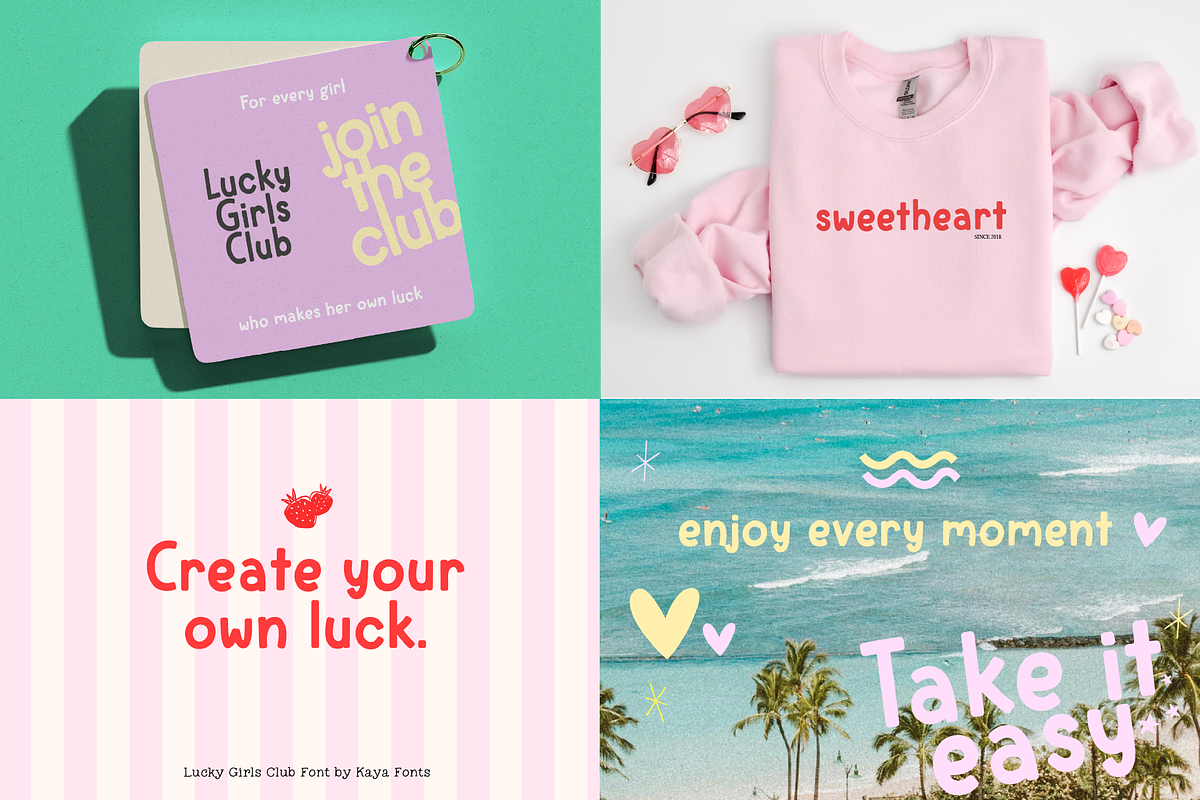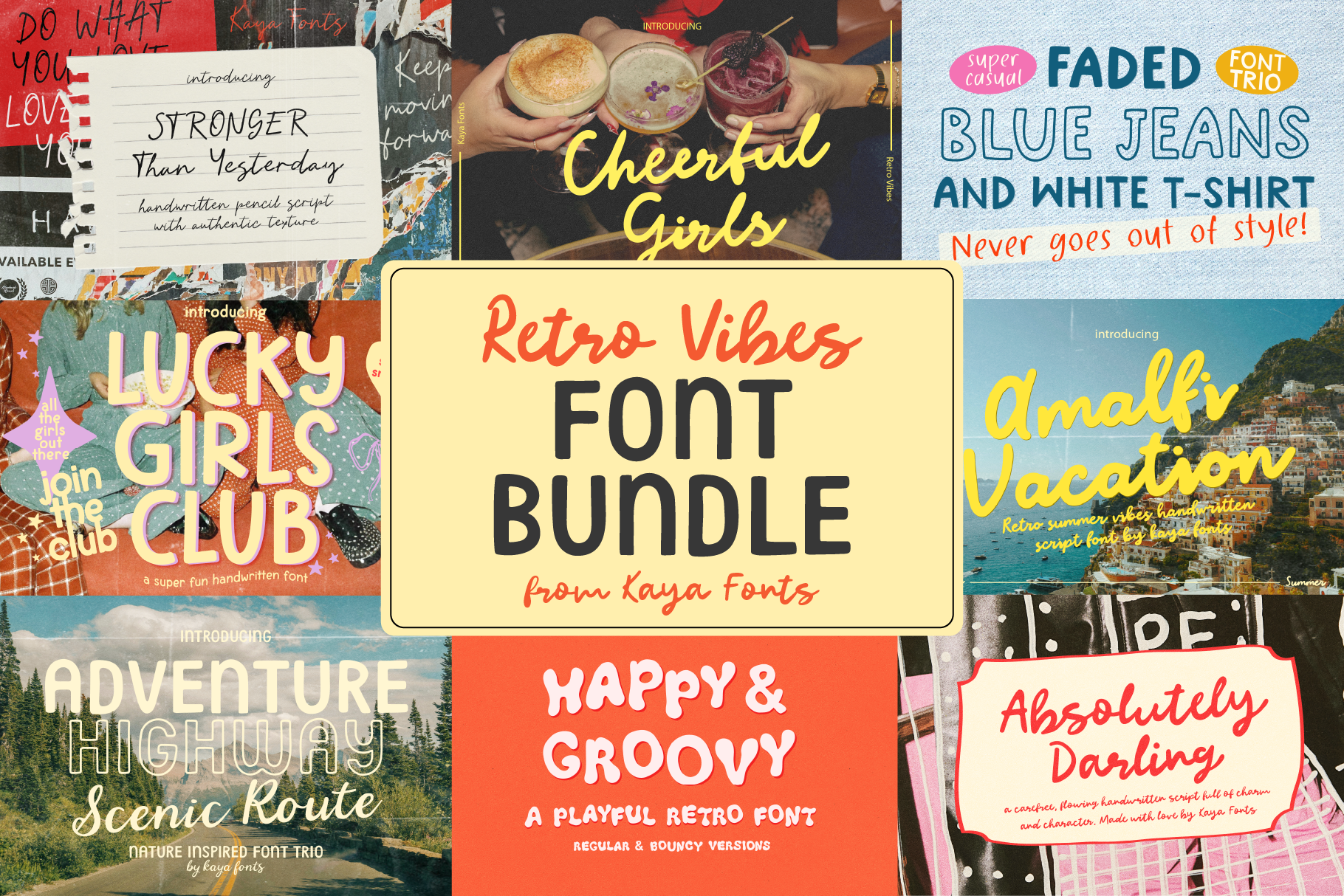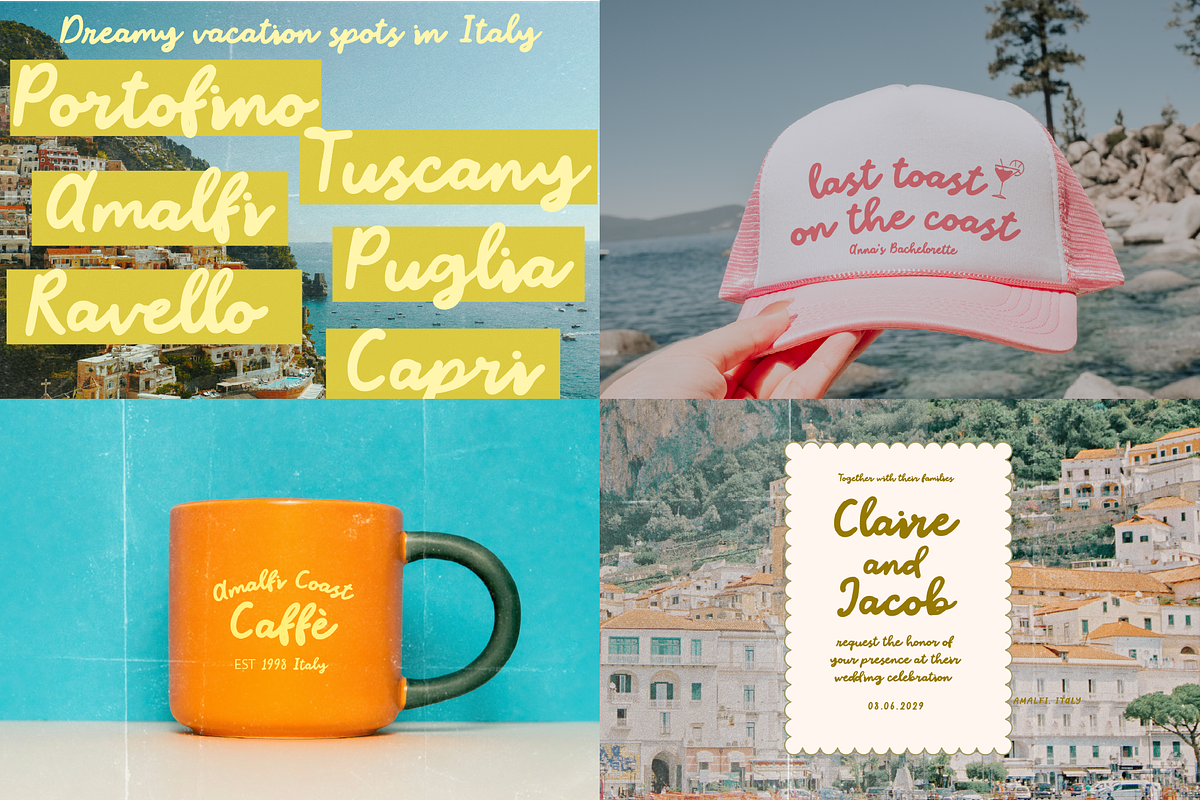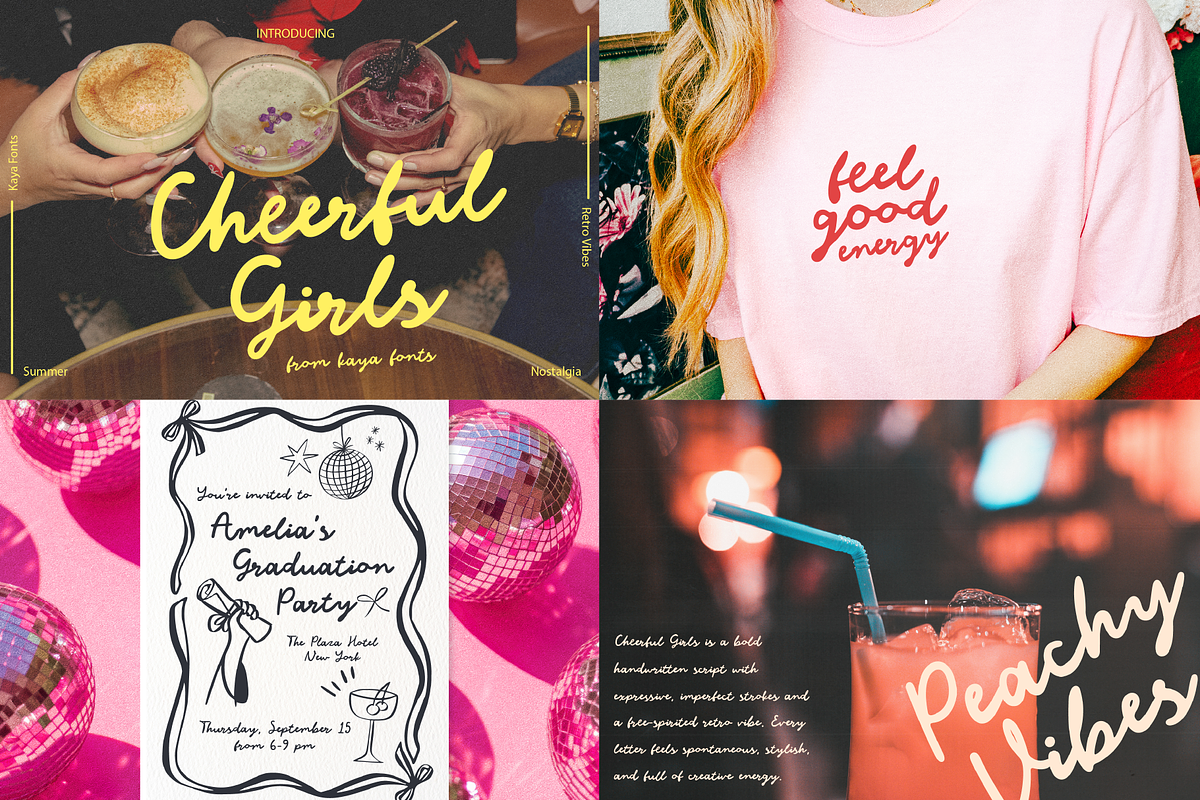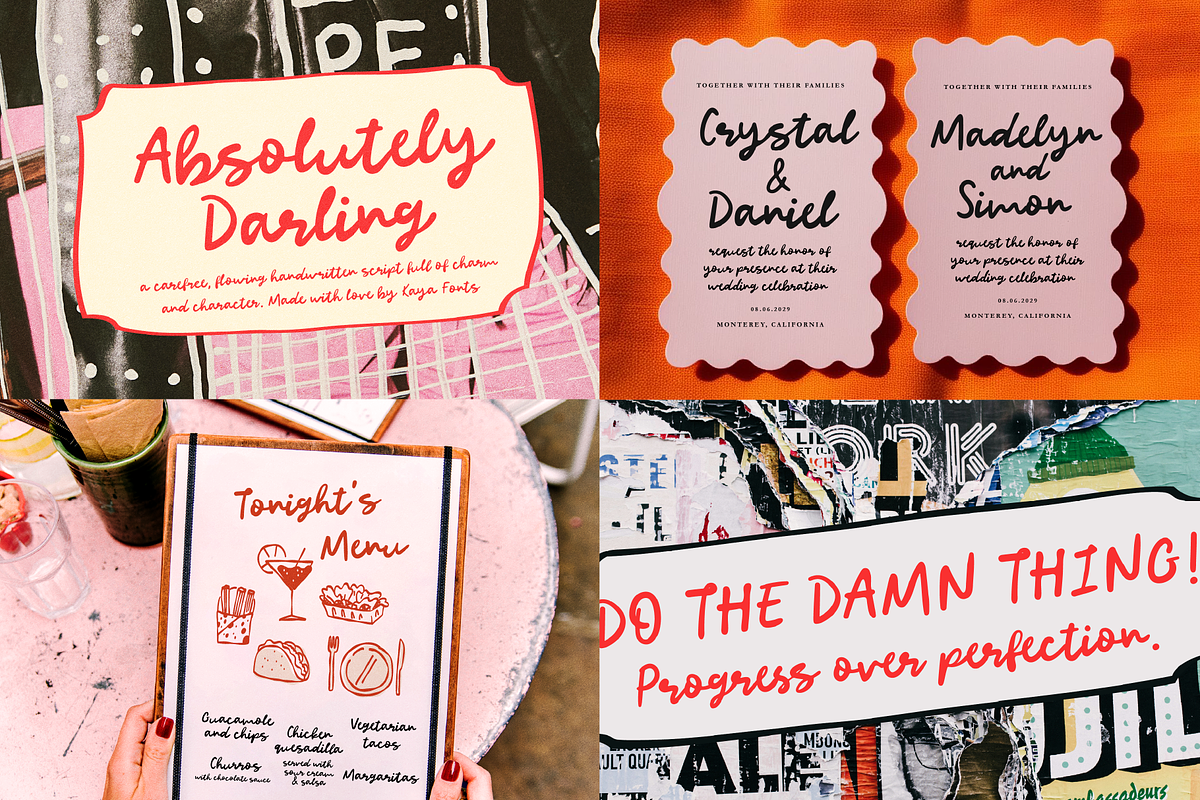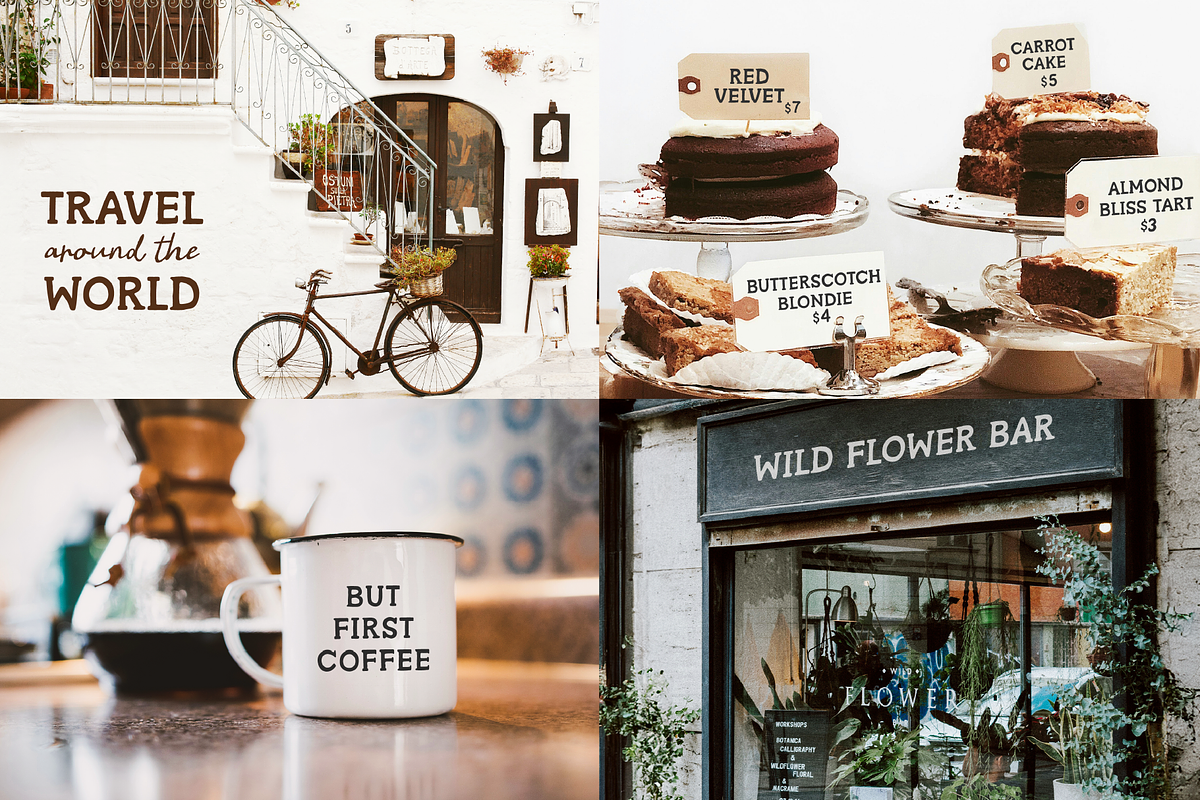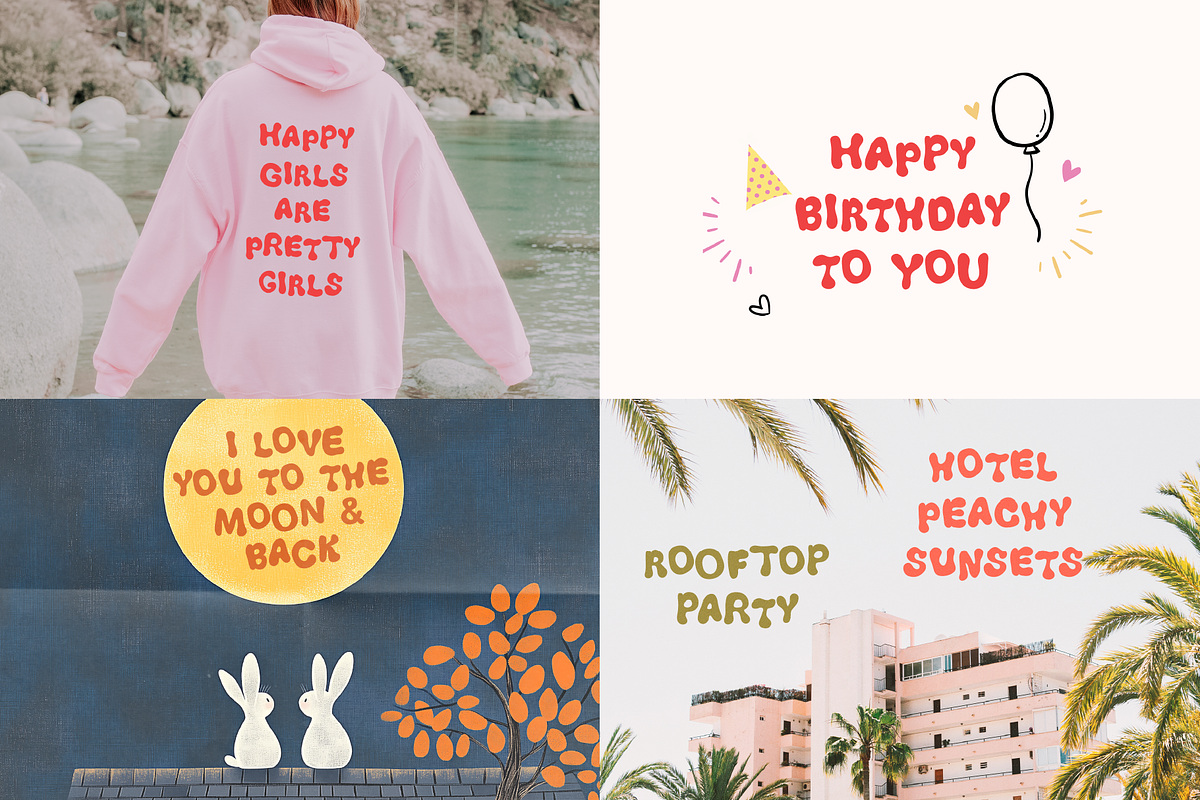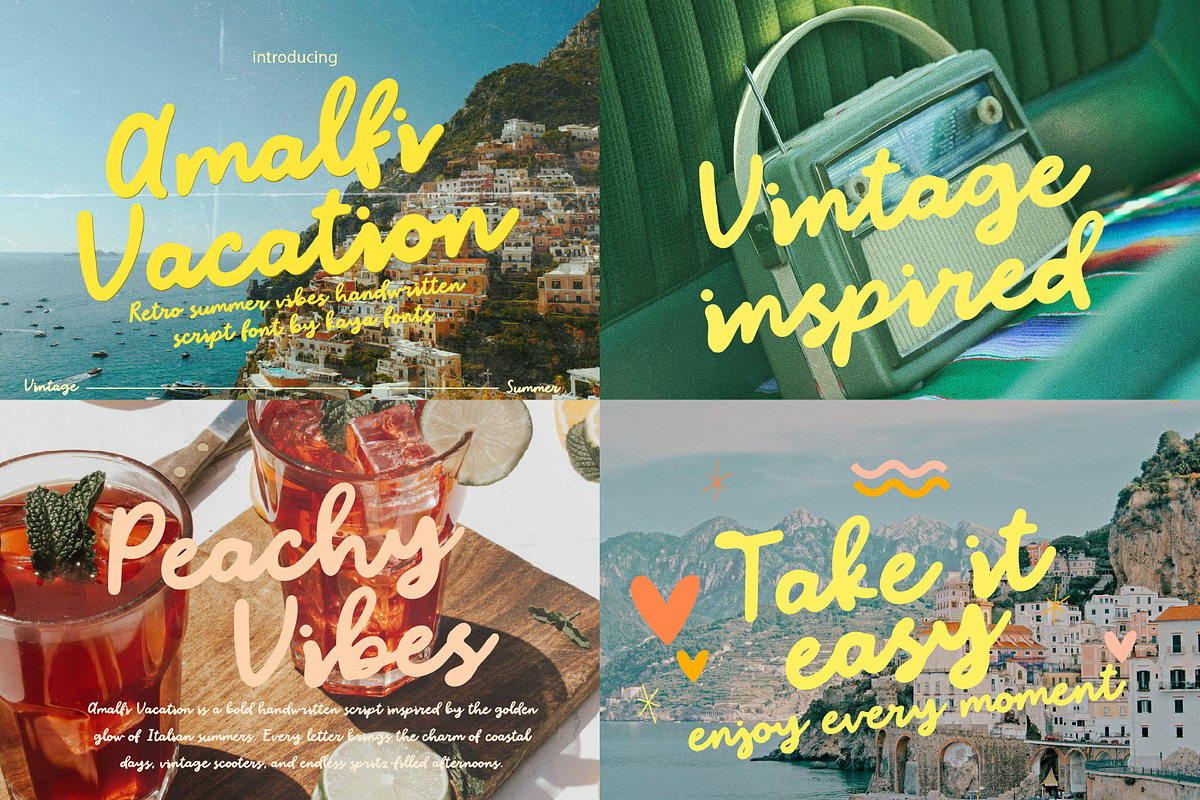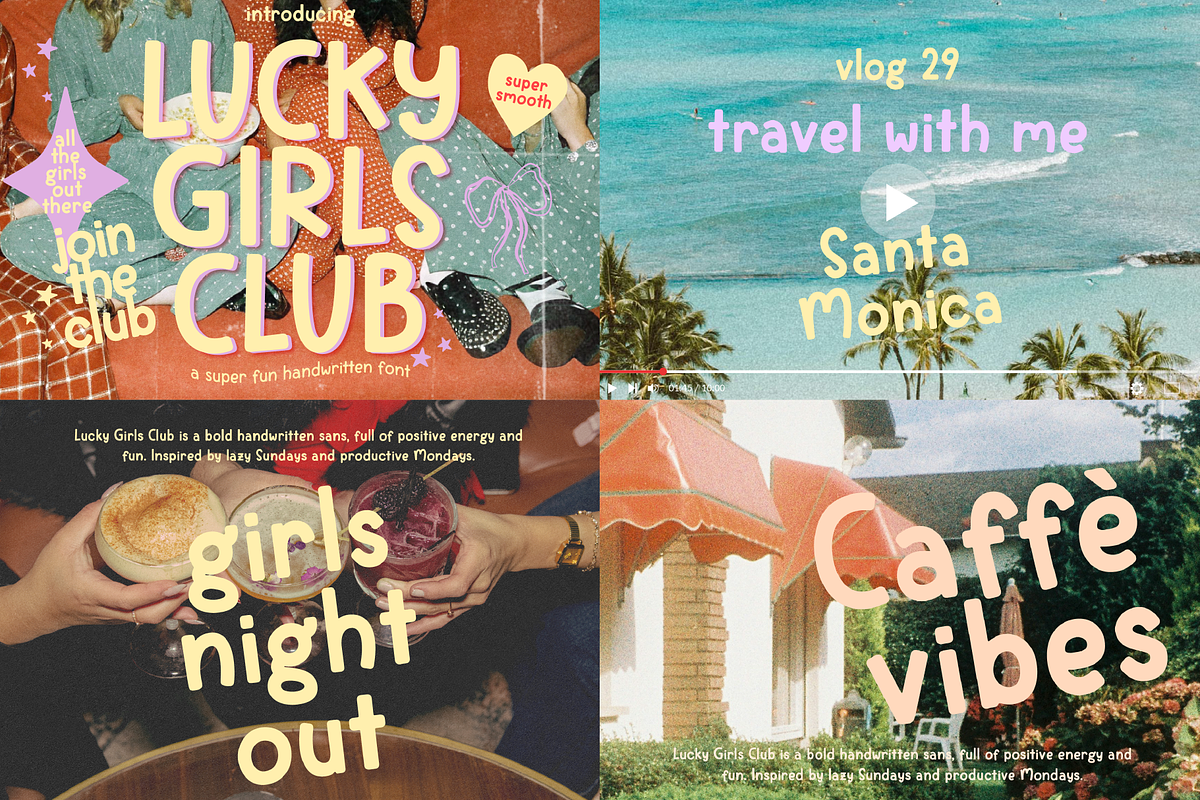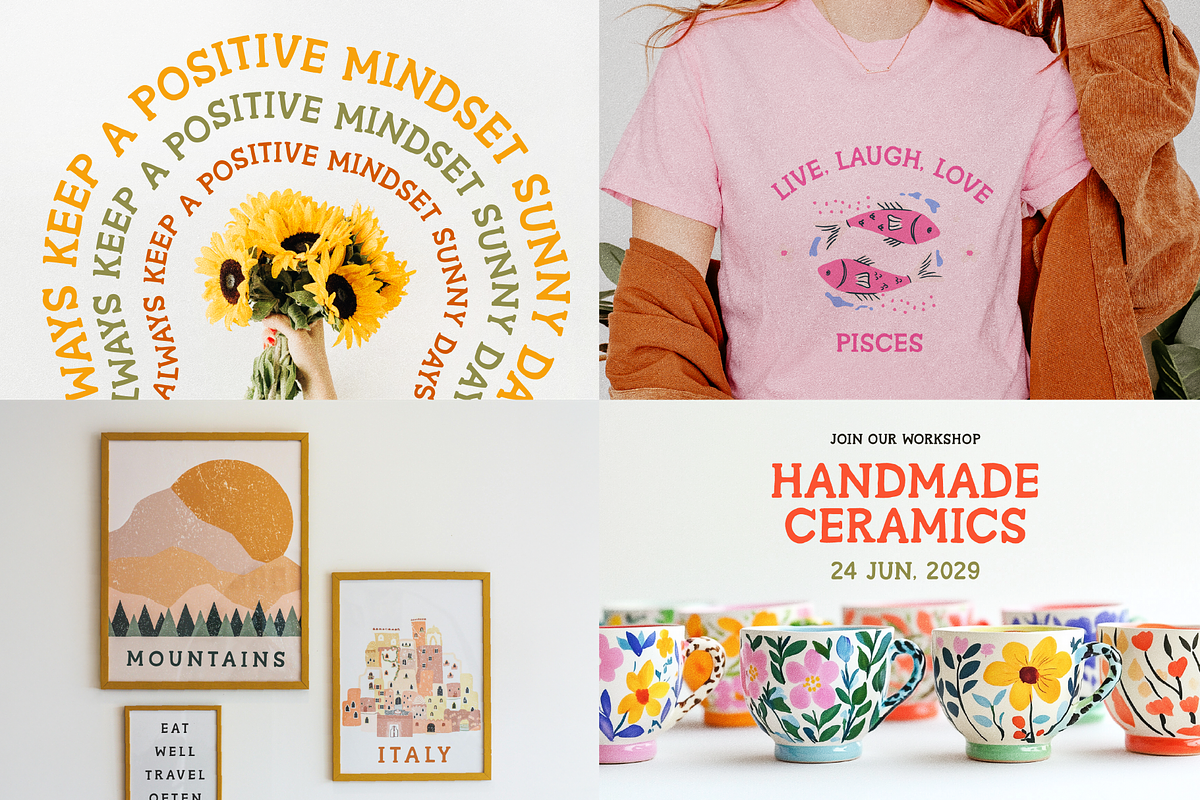
Retro Vibes Font Bundle Handwritten
Retro Vibes Font Bundle – a curated collection of handmade, retro-inspired fonts that bring personality and warmth to any project. Whether you're crafting bold branding, vibrant social media graphics, or dreamy merch designs, these fonts are designed to make your work pop with that perfect touch of vintage flair.
This bundle includes a variety of styles – from bubbly hand-lettered scripts to funky display fonts – all lovingly created to channel the carefree spirit of the '70s, sunny road trips, cozy cafés, and girly vibes. Ideal for designers, content creators, small business owners, and anyone who loves fonts with soul!
INCLUDING FONTS
Multilingual Support: Every font in this bundle except Happy & Groovy Display Font offers extensive multilingual support.
• Retro branding & logos
• Instagram & social content
• T-shirt & merch design
• Creative journaling & scrapbooking
• Invitations, posters, and packaging
Add a sprinkle of nostalgia and a whole lot of fun to your font library with Retro Vibes Font Bundle – your new go-to collection for anything sweet, stylish, and a little bit groovy.